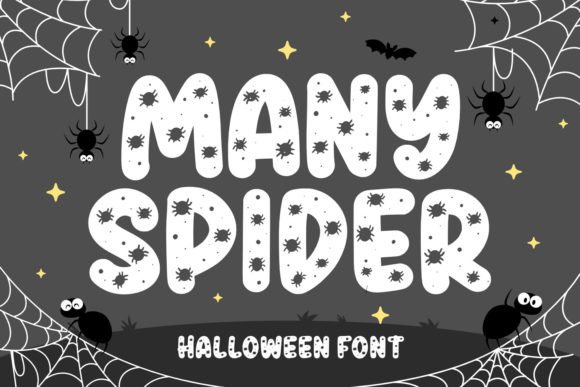
Unleash your creativity and weave a web of fascination with the "Many Spider" font, a spine-chilling display font that will cast a spell on your audience. Step into a world of enchanting horror as each character unfurls like a spider's intricate web, where letters are adorned with creepy crawlers that dance across the page.
Immerse yourself in the eerie elegance of this font, where every letter transforms into a haunting work of art. The "Many Spider" font is the perfect choice for conjuring a spooky atmosphere in your Halloween designs, posters, invitations, and any project that demands a spine-tingling, spider-themed aesthetic.
With its ability to send shivers down the spine, the "Many Spider" font will add a touch of unsettling charm to your designs. Its eerie sophistication will leave a lasting impression, making it the perfect choice for creating truly memorable experiences.
So, embrace the darkness and let your creativity run wild with the "Many Spider" font. Its unique blend of intricate letterforms and spider-like elements will transport you to a realm of Halloween enchantment, leaving your audience spellbound. Download it now and let the spiders weave their magic in your designs!